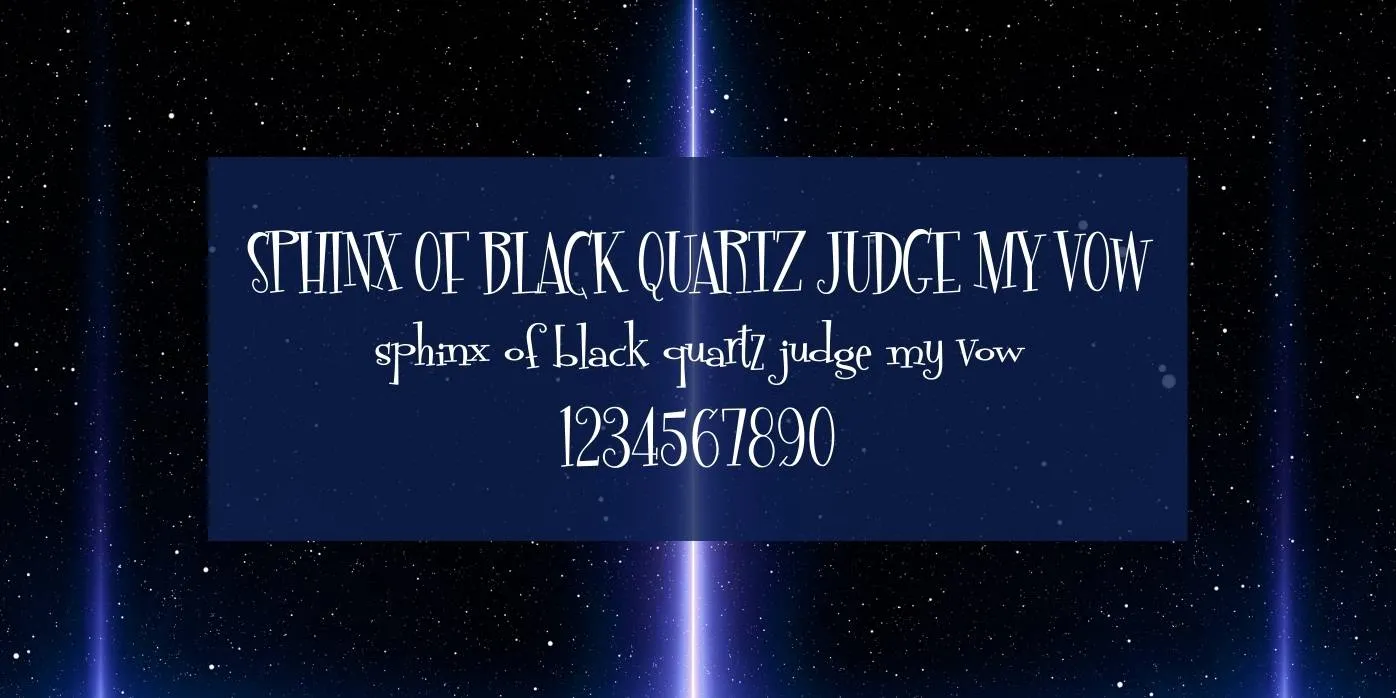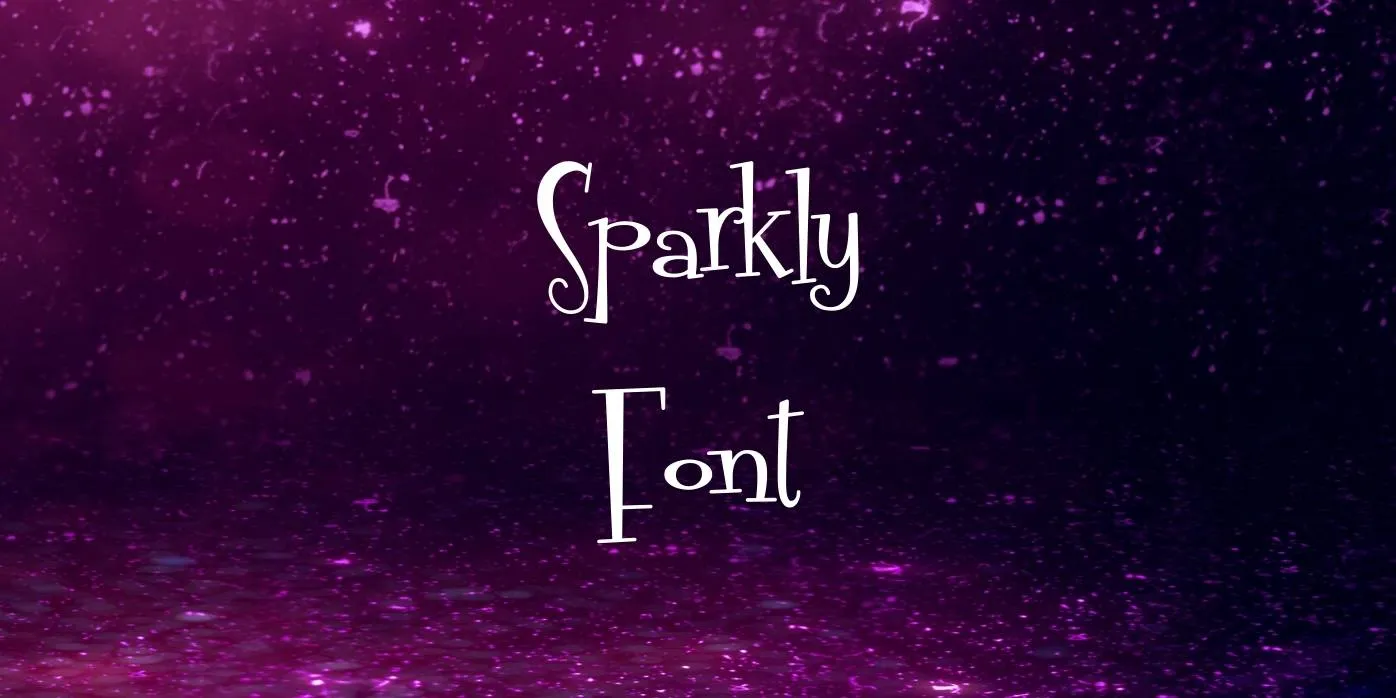
Sparkly Font
In this post, we discuss Sparkly Font which belongs to the serif family. This family is characterized by the small lines that extend from the main strokes of the letters. The name “serif” is derived from the Dutch word schreef, meaning “line.” Serif fonts are often used for body text because they are easy to read in small sizes. They are also used for headlines and titles because of their stately appearance.
Most typefaces can be classified as either serif or sans serif. A sans serif typeface is one that does not have the small lines extending from the main strokes of the letters, as seen in this image. You can also use its similar santral font for more features. There are many different kinds of serif fonts, but it is one of the most popular.